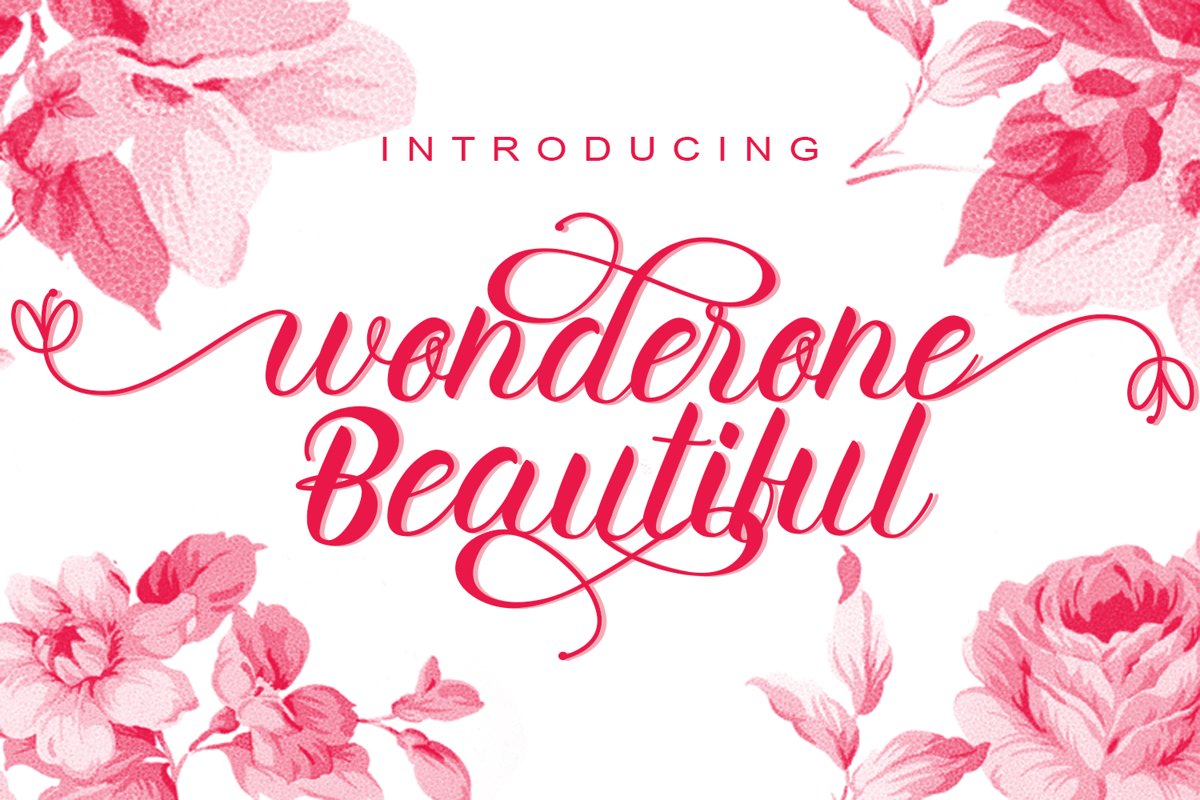
wonderone beautiful
wonderone beautiful Script Font is a thin handwritten font, made in a modern style and also a type of font that is trending among designers today, by presenting a luxurious appearance that will make your design attractive and look very suitable.
In addition, this beautiful wonderone font is also suitable for ad text, book covers, logos, mock ups, matemarks, magazines, food designs, products, headers, coffee logos, brands, films, columns, videos, and imagination.